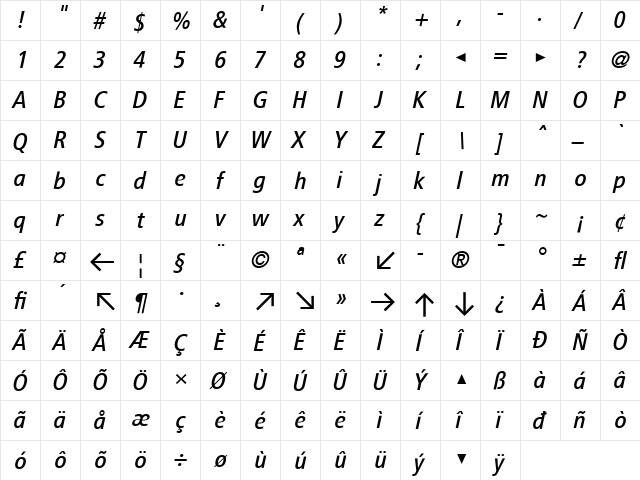
TransitFront Italic
| Foundry | BVG und MetaDesign published by FontShop International |
Design Context for TransitFront Typeface
TransitFront takes a measured approach to typography — its balanced proportions and neutral character make it a reliable workhorse for both digital and print work. Its italic angle brings a sense of urgency and motion to the letterforms.